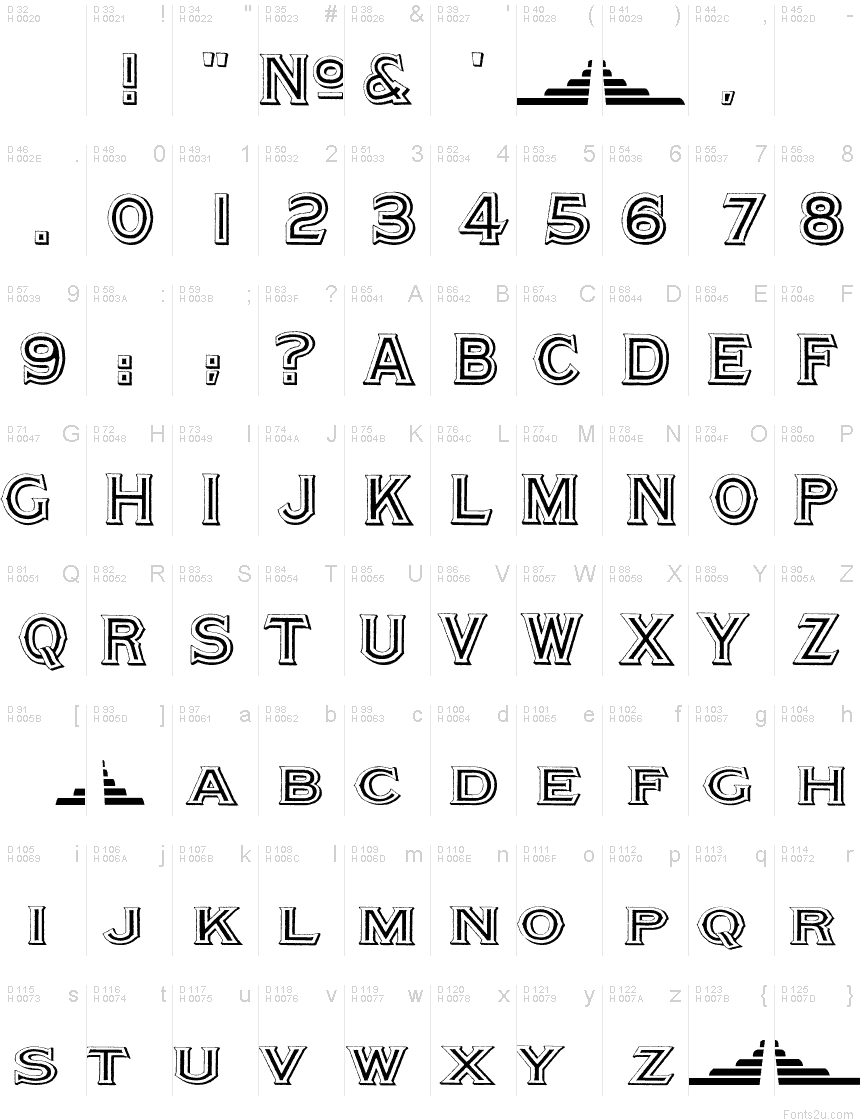
Altea
Altea font by PJL is a free retro display typeface that looks like it’s been pulled straight off a sun-faded poster. Chunky letterforms with carved inner lines and rough, inky edges create a layered, almost three-dimensional feel, like wood type that’s been printed a few too many times. The spacing is generous and steady, so even with its busy interior detailing, Altea stays legible and bold from a distance.
Using Altea, you get instant character for gig posters, vintage-style packaging, book or zine covers, bar or café signage, event titles, and bold logos that need an edge of grit. This free font shines when used large, where those inner strokes and distressed contours can really show. Pair Altea with a simple geometric sans-serif in smaller text to keep layouts balanced and let its retro personality do the heavy lifting.